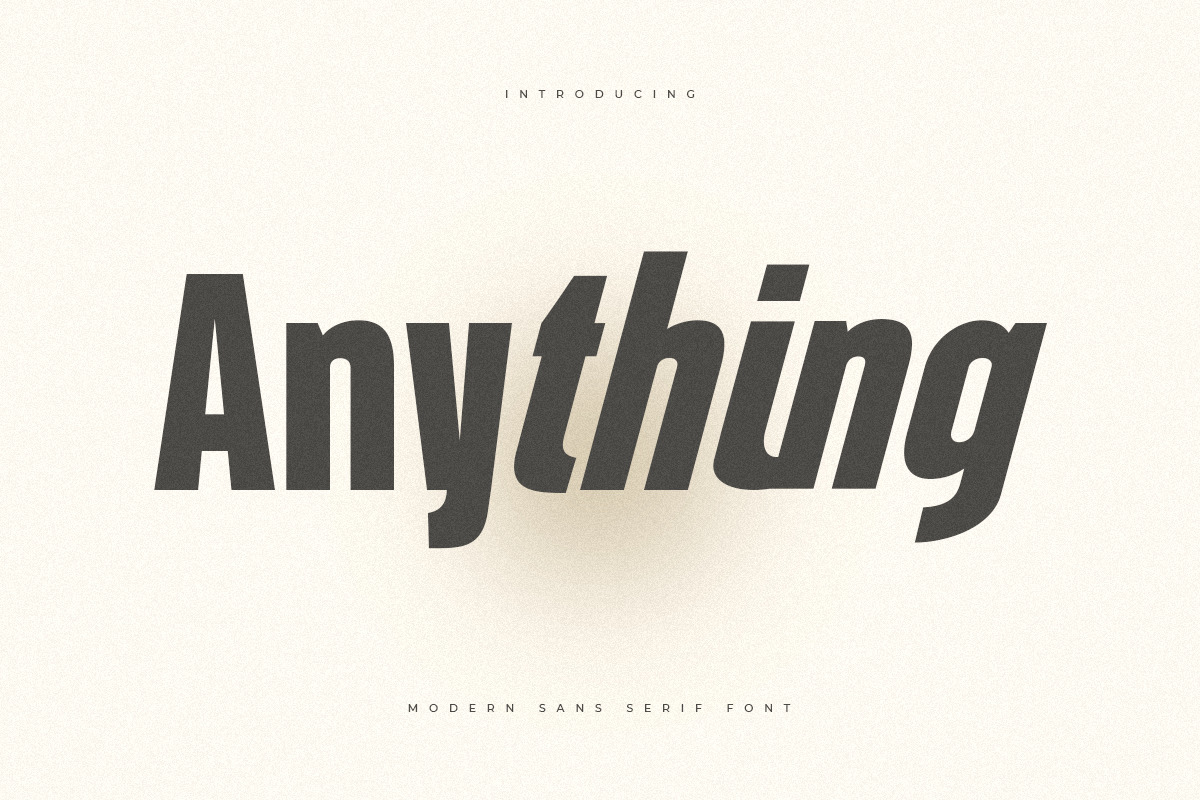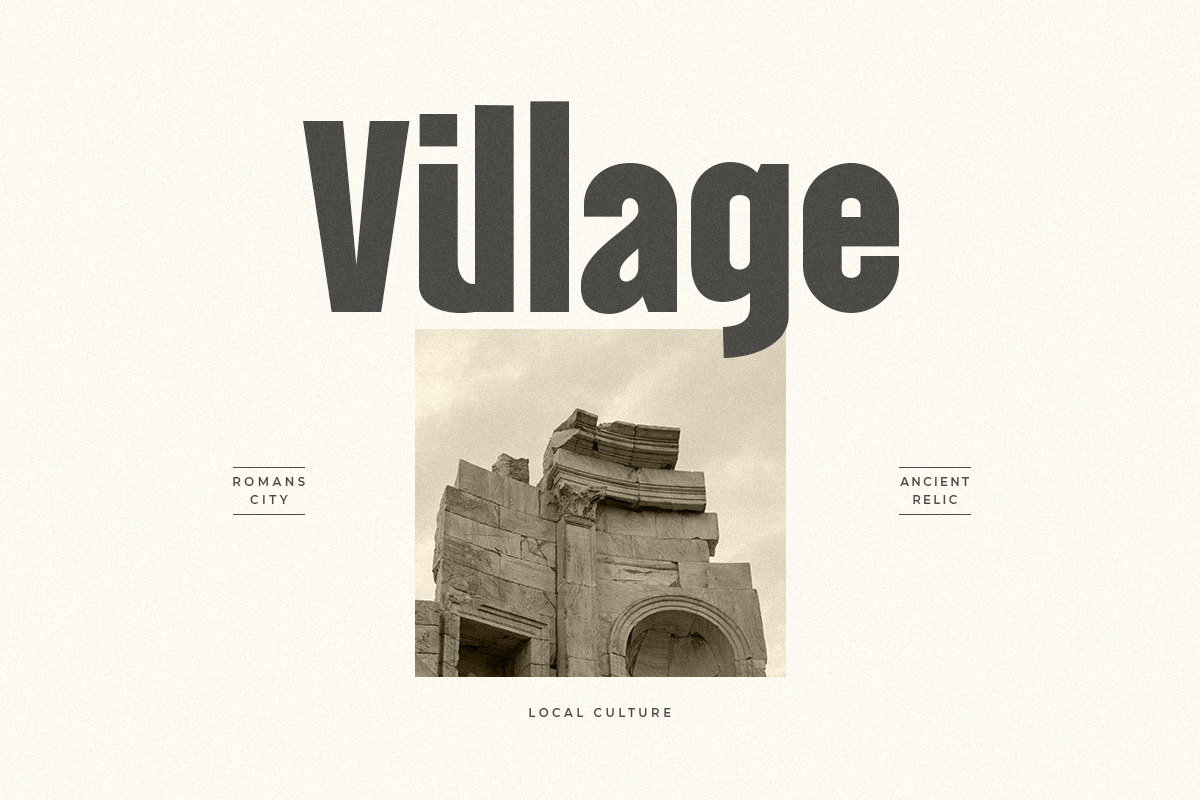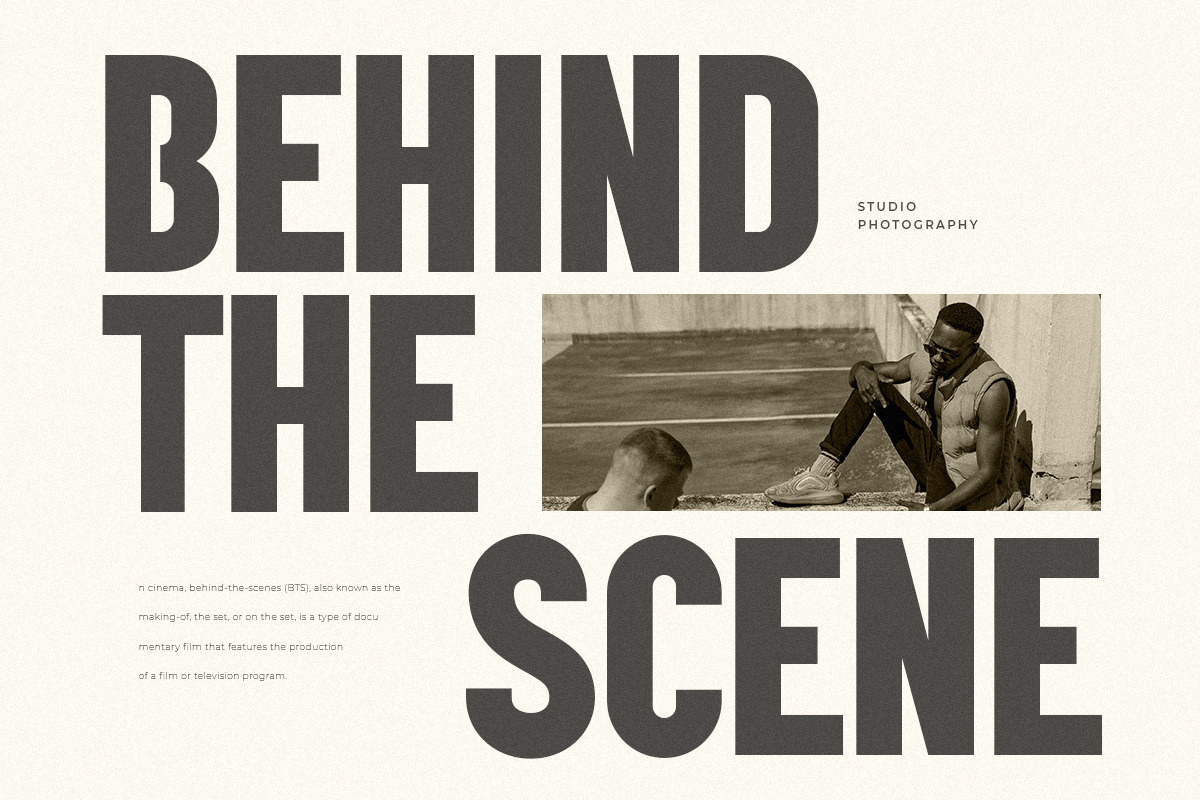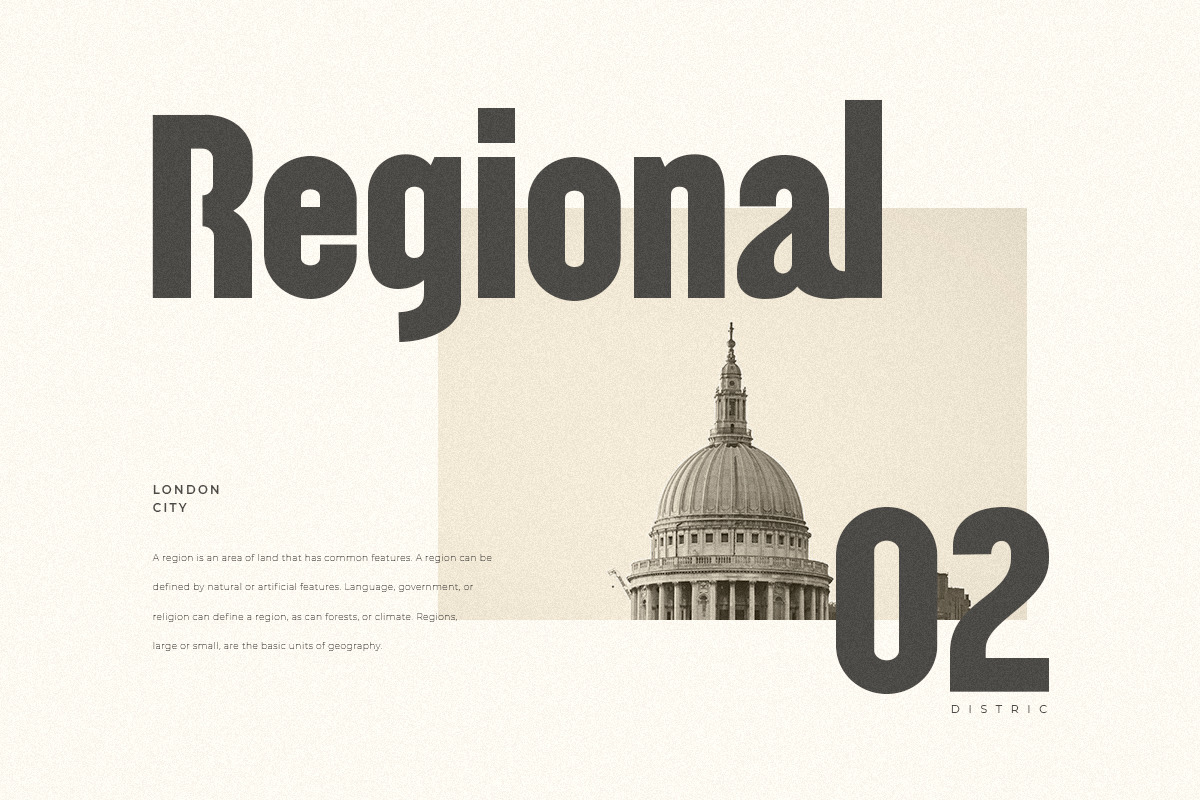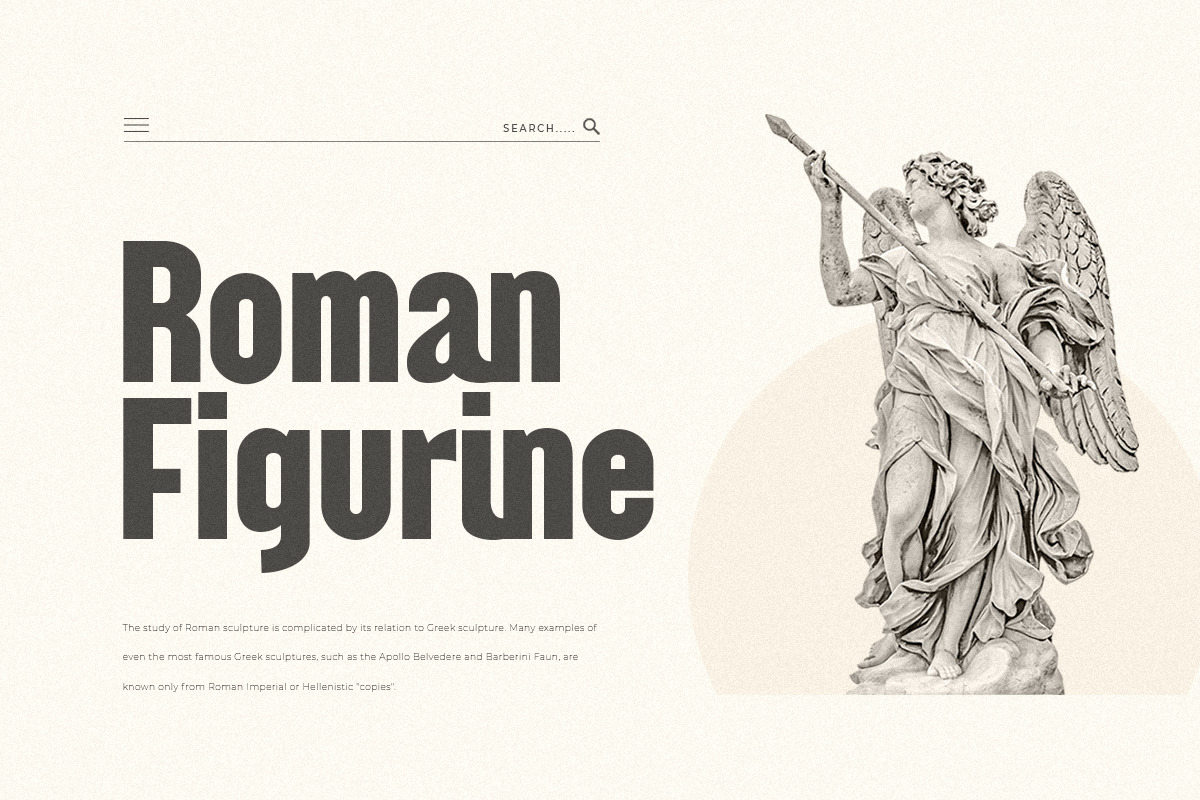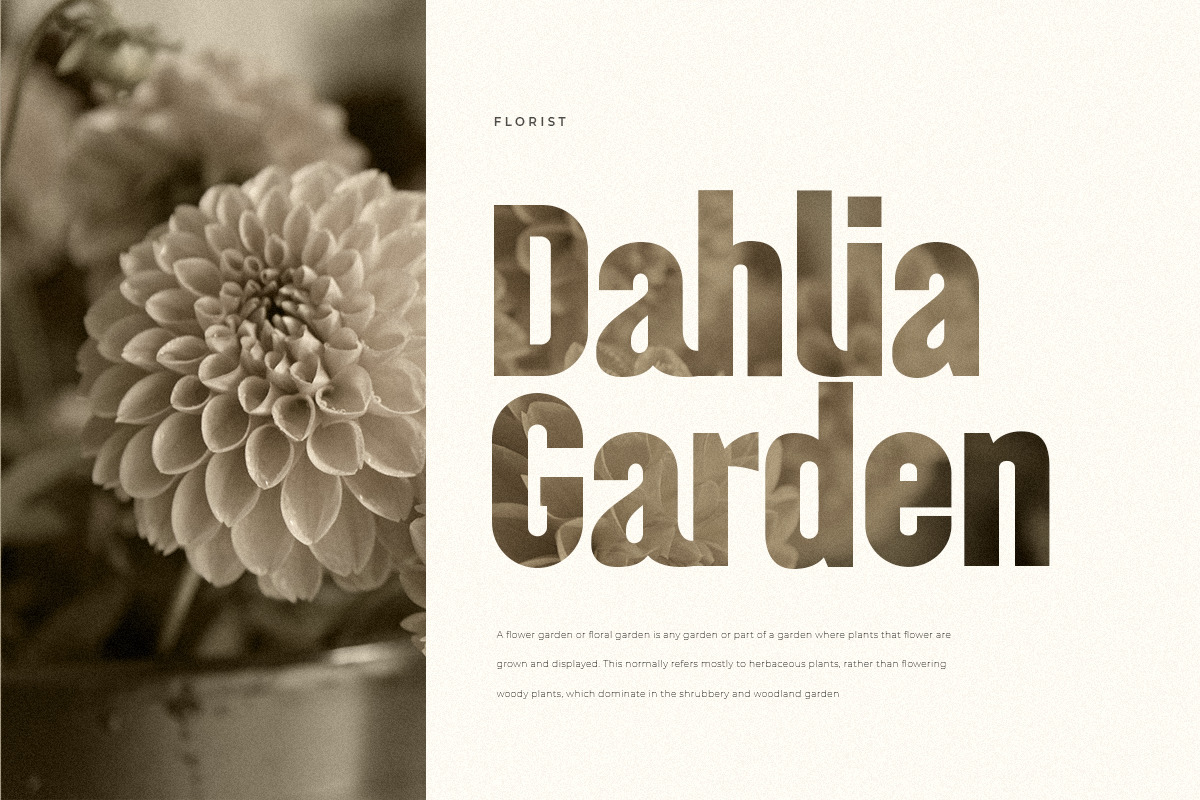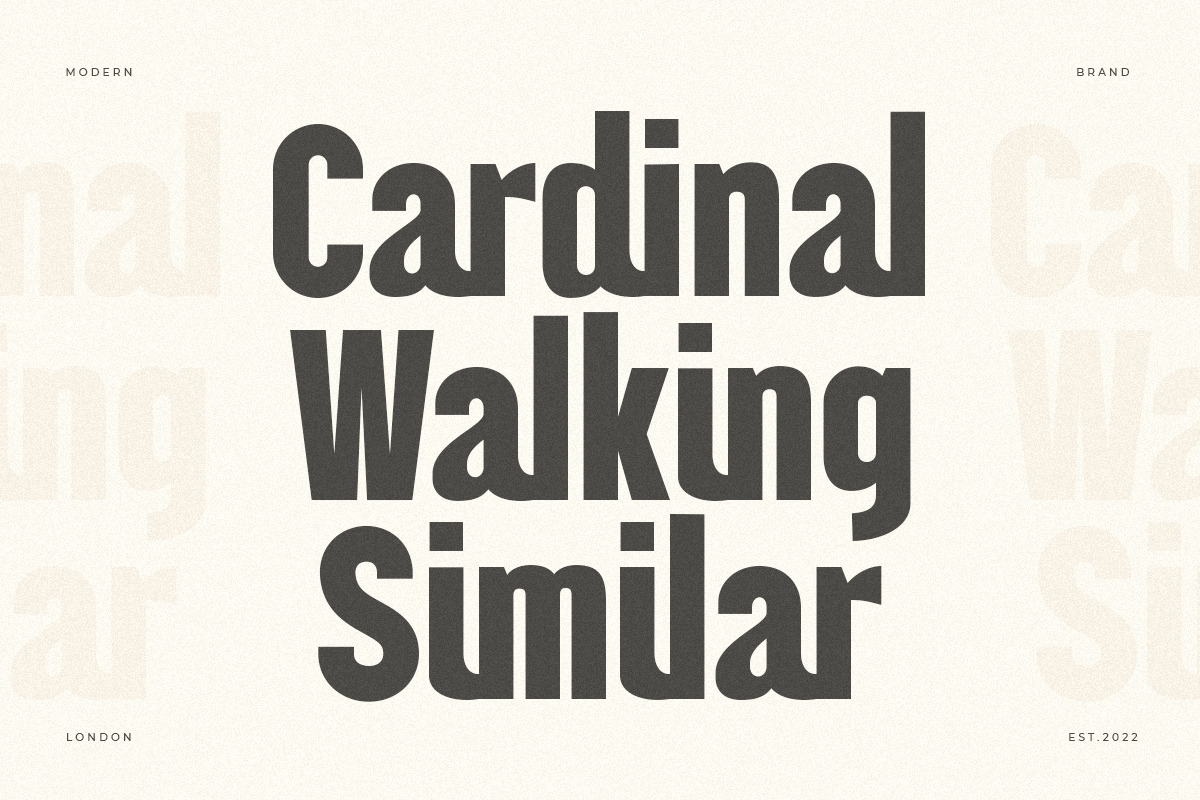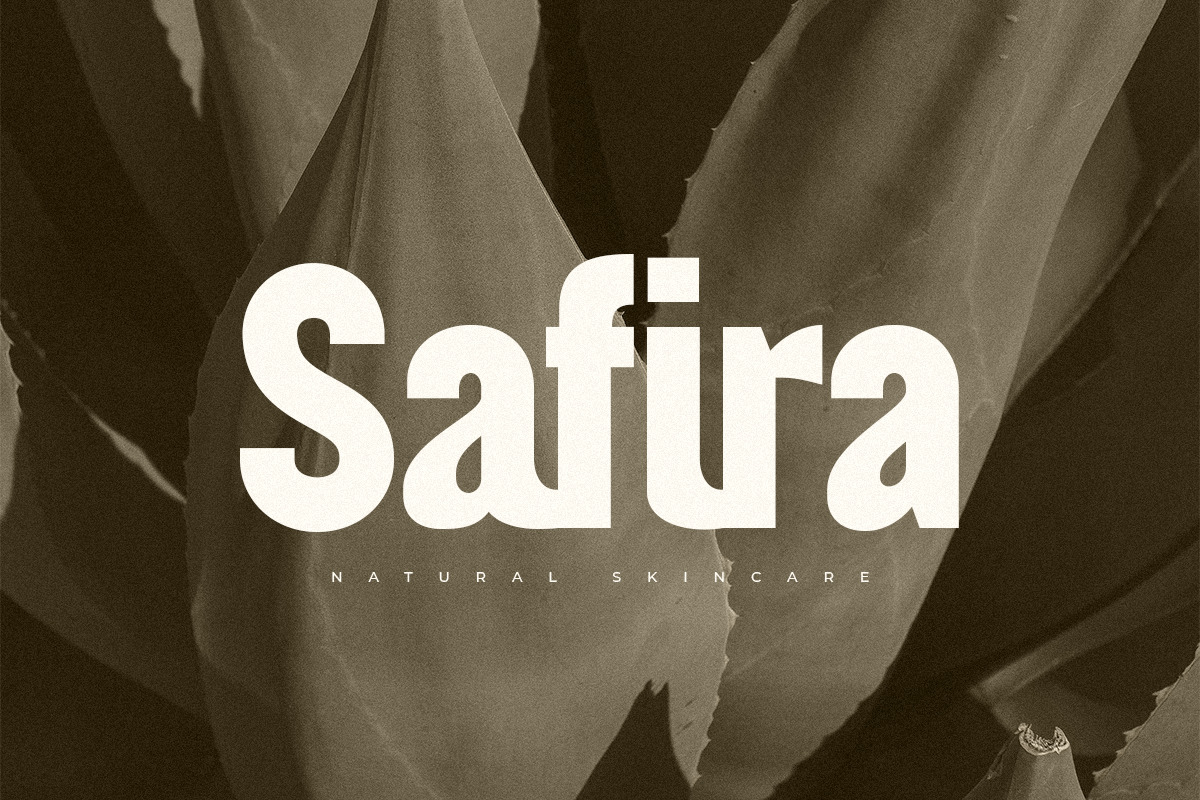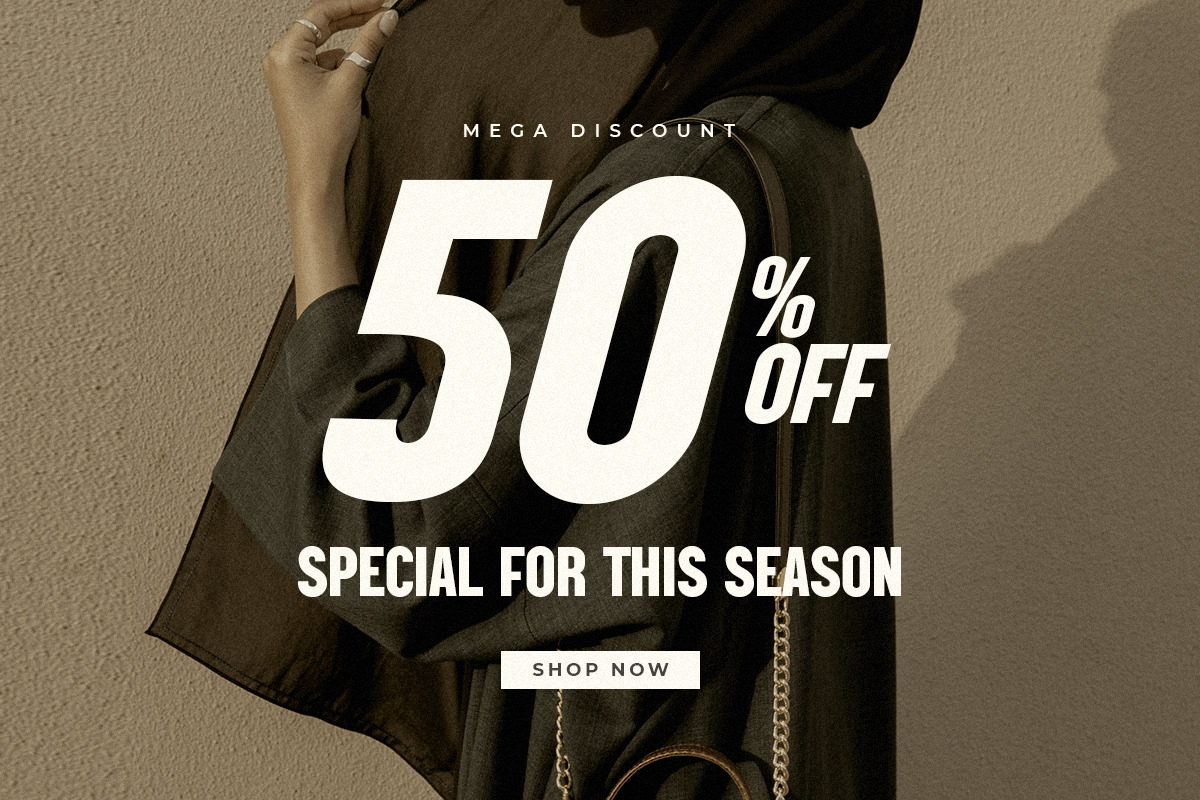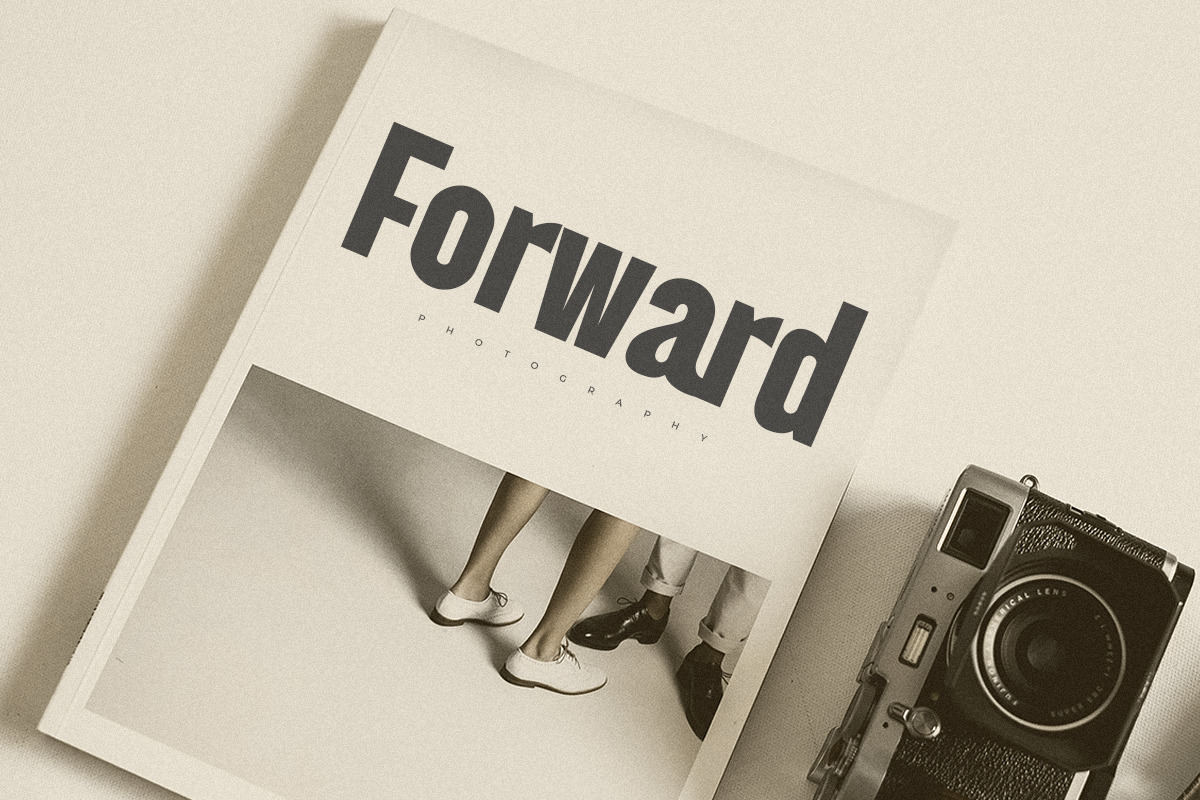
Anything - Inspired by Helvetica Font
A Sans serif that we created special for unique branding needs, with extra ligatures in unique shape will be ready to add value of your brand. It so nice to leverage designer or product owner that need solutions to make their design look more unique and modern. And specially for this font, We prepared any ligatures characters to help you create unlimited variations for your creative needs.
Anything - Inspired by Helvetica Font ready with:
- Any options to get creative variations (combination of Ligatures)
- Regular and Italic Version
- Preview as a inspirations that you can do with Anything font
- Ready with Lowercase and Uppercase characters